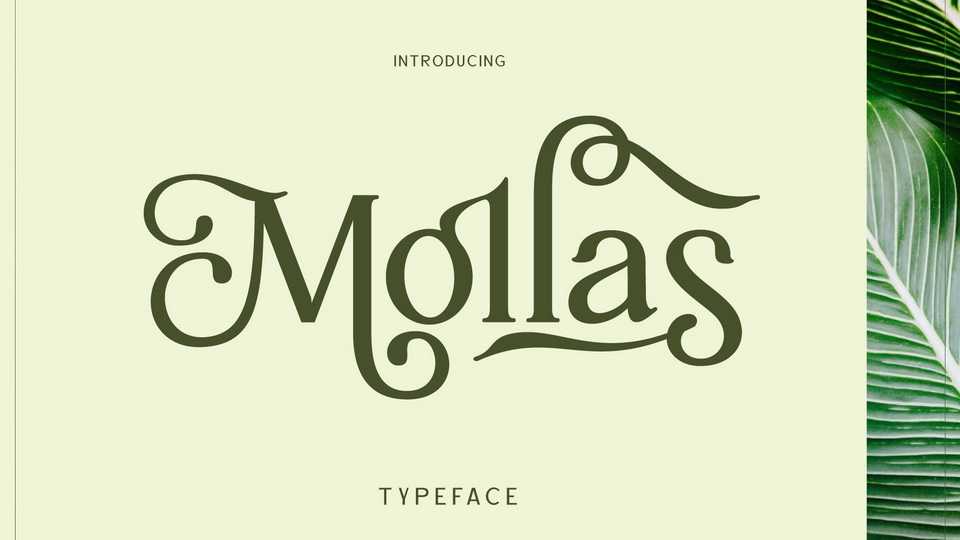
Download Mollas font, a formal, elegant typeface and can be applied to any design concept. Mollas perfectly fits for branding design, header text, online shop, logo design, social media and so on.